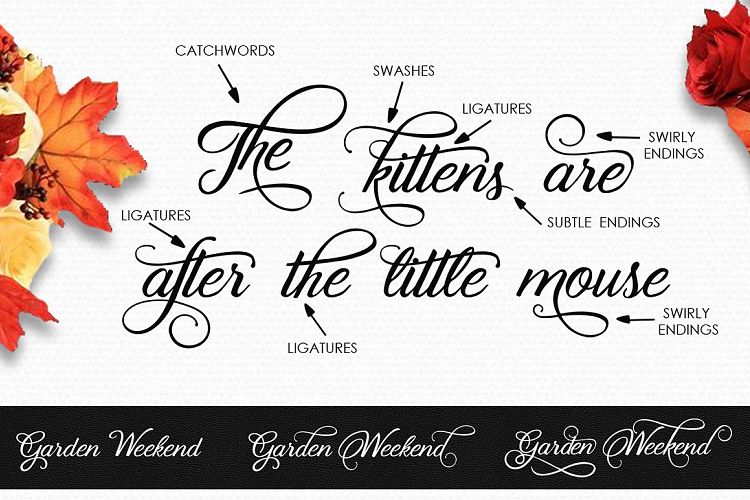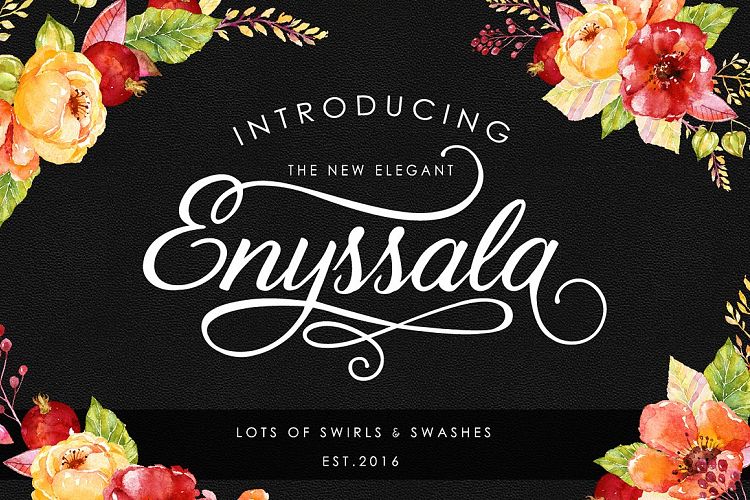
Enyssala Script Font
Enyssala is an elegant handwritten stylish calligraphy font. It can be easily used for various creative projects like logos, wedding invitations, t-shirts, posters, etc.
| Designer Name: | BlackCatsMedia |
| Classification: | Brush Fonts, Calligraphy Fonts, Handwritten Fonts, Script Fonts |